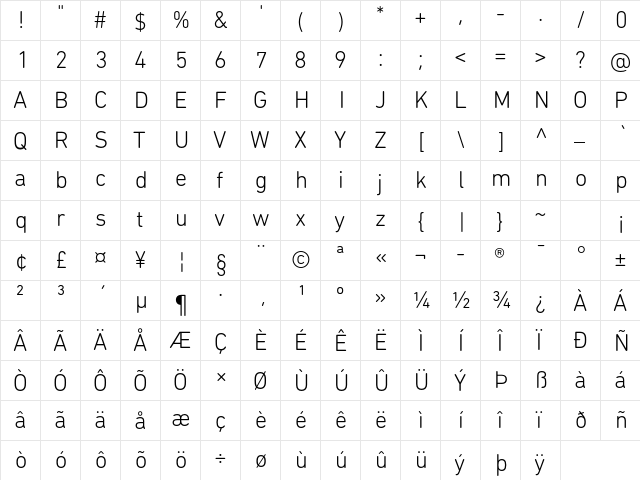
DIN Next Rounded LT Pro Light Font Preview
| Foundry | Linotype GmbH |
| Designer | Linotype Design Studio |
Design Context for DIN Next Rounded LT Pro Typeface
DIN Next Rounded LT Pro uses gentle rounded endings to create a warm, inviting typographic personality — less corporate than geometric sans, more refined than playful display fonts. Its slender proportions lend an understated elegance to any composition.
A natural fit for tech startups, health and wellness brands, children's products, and friendly consumer apps.
Font Pairing: Pairs well with a rounded or humanist sans for body copy, maintaining the friendly tone without relying on DIN Next Rounded LT Pro to carry extended reading.
Pro Tip: Pair DIN Next Rounded LT Pro with a geometric sans for a balanced system — the rounded softness works as a warm counterpoint to harder-edged companions.